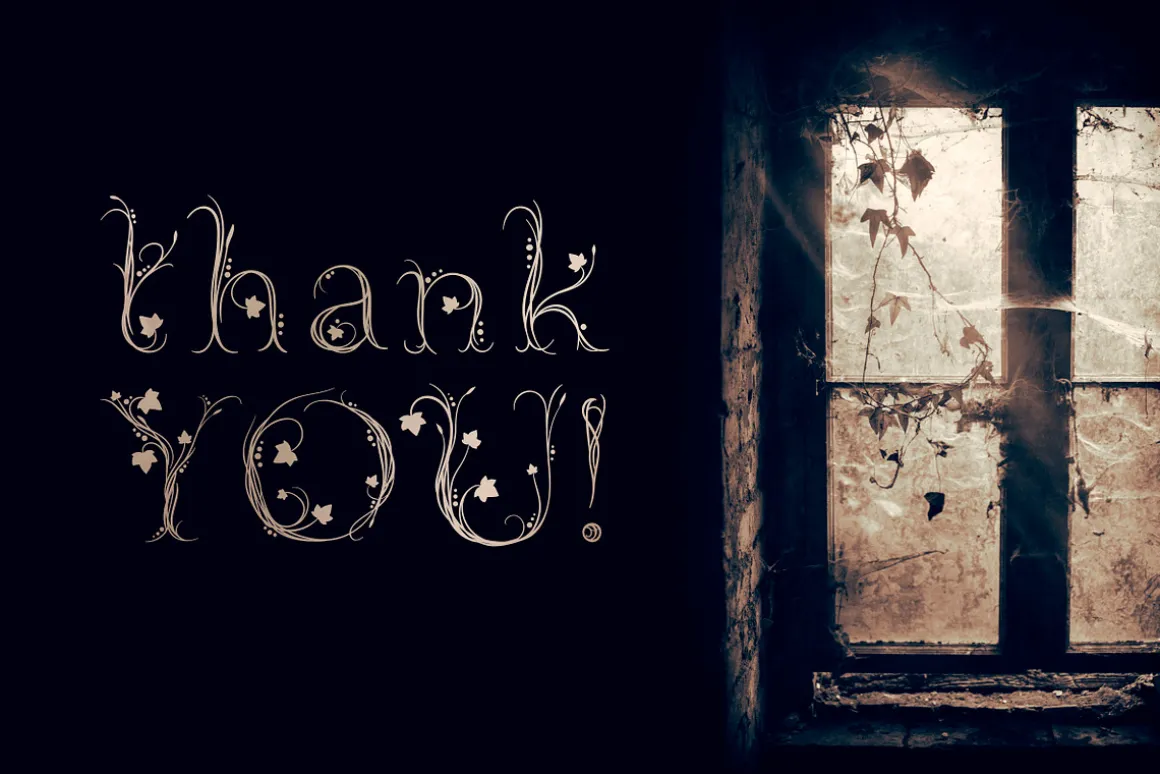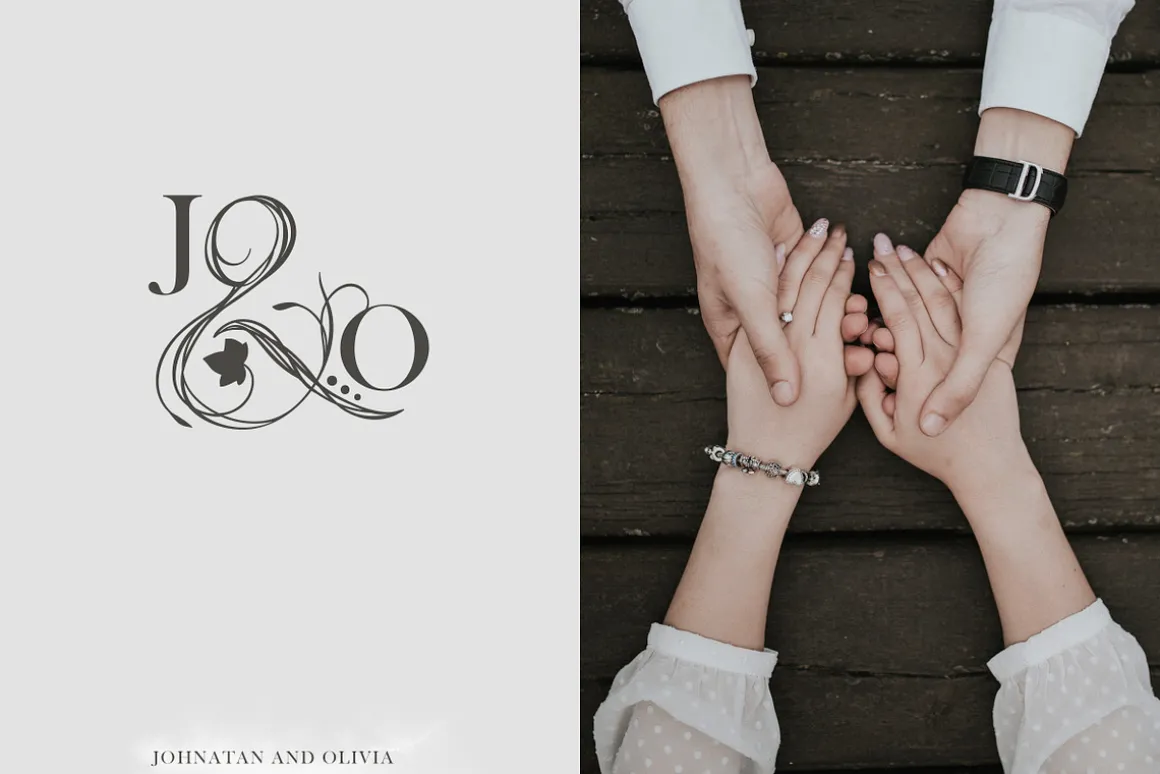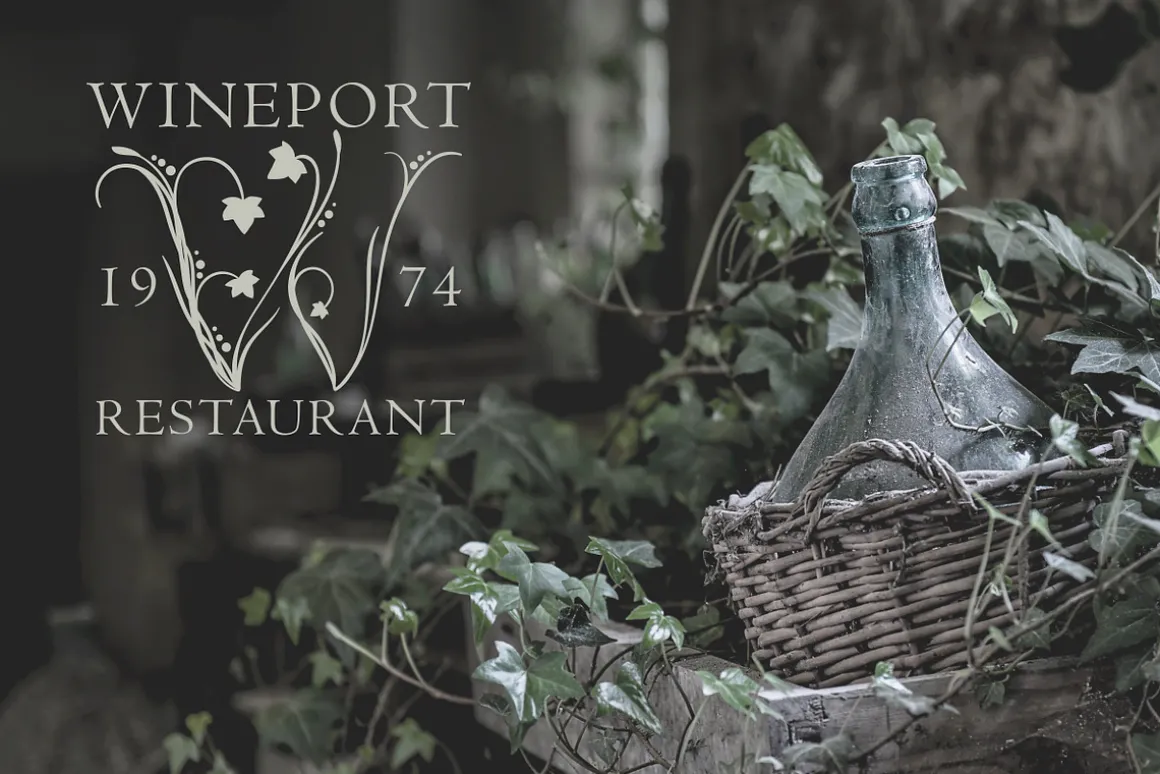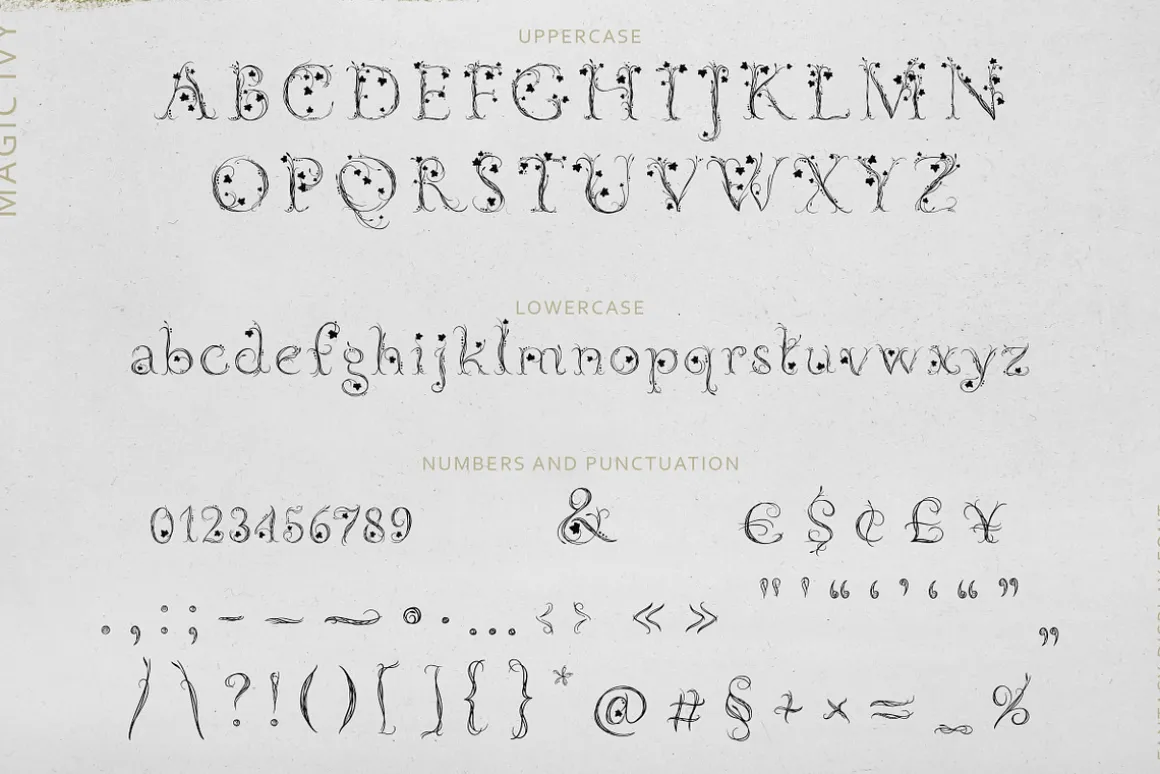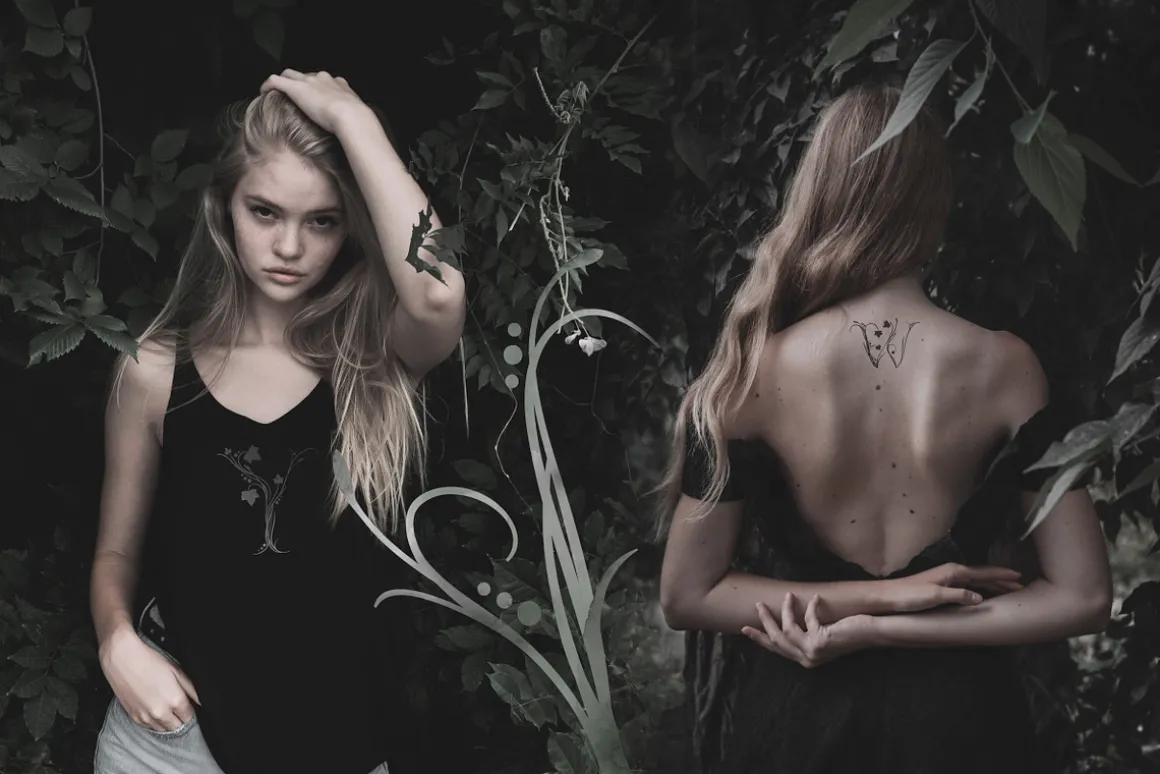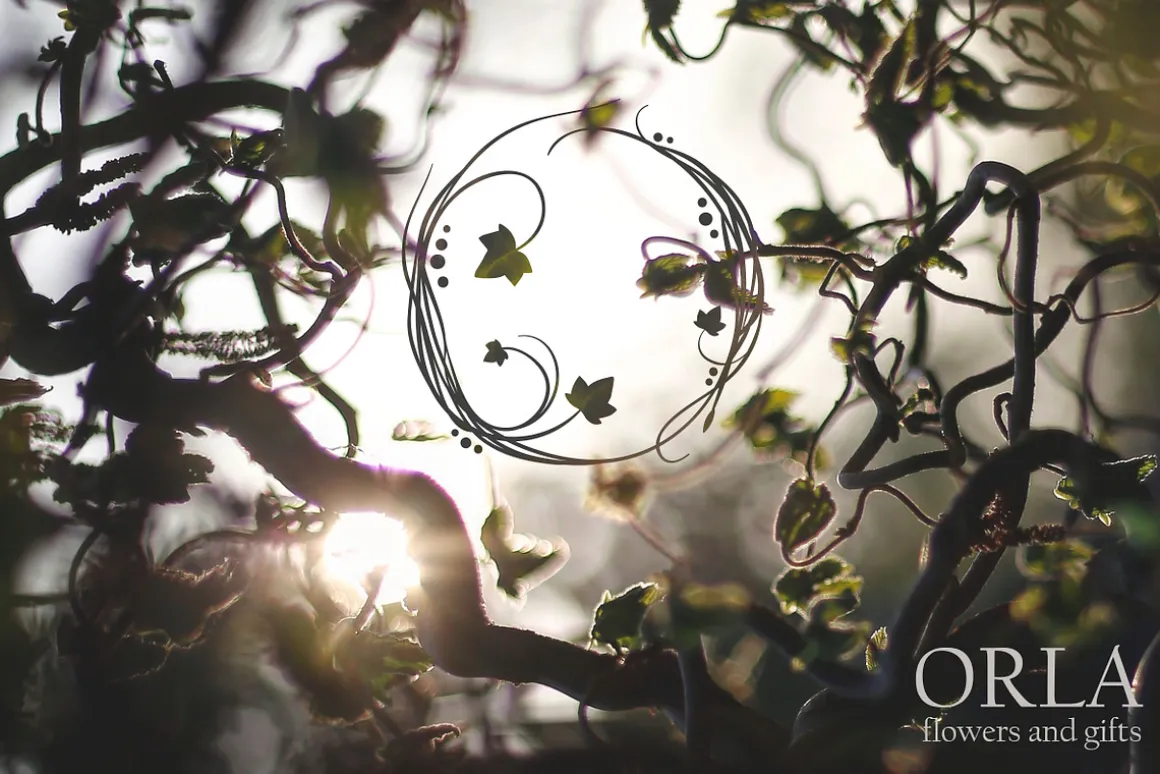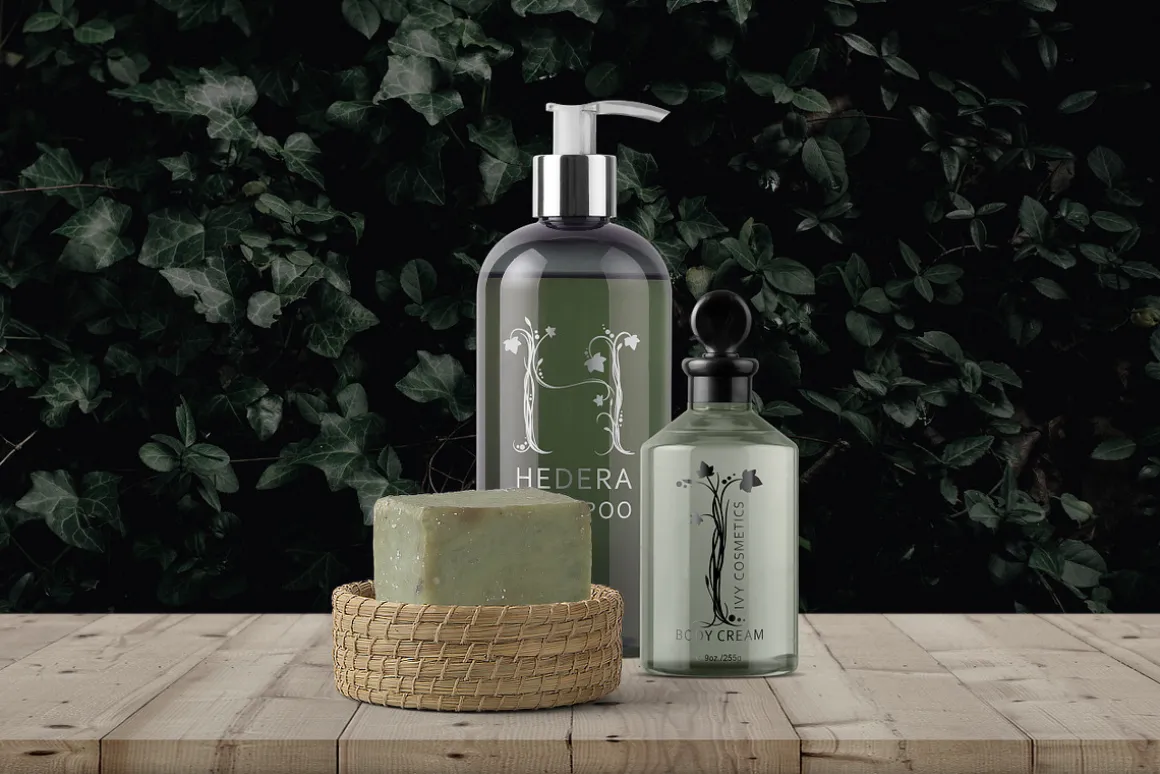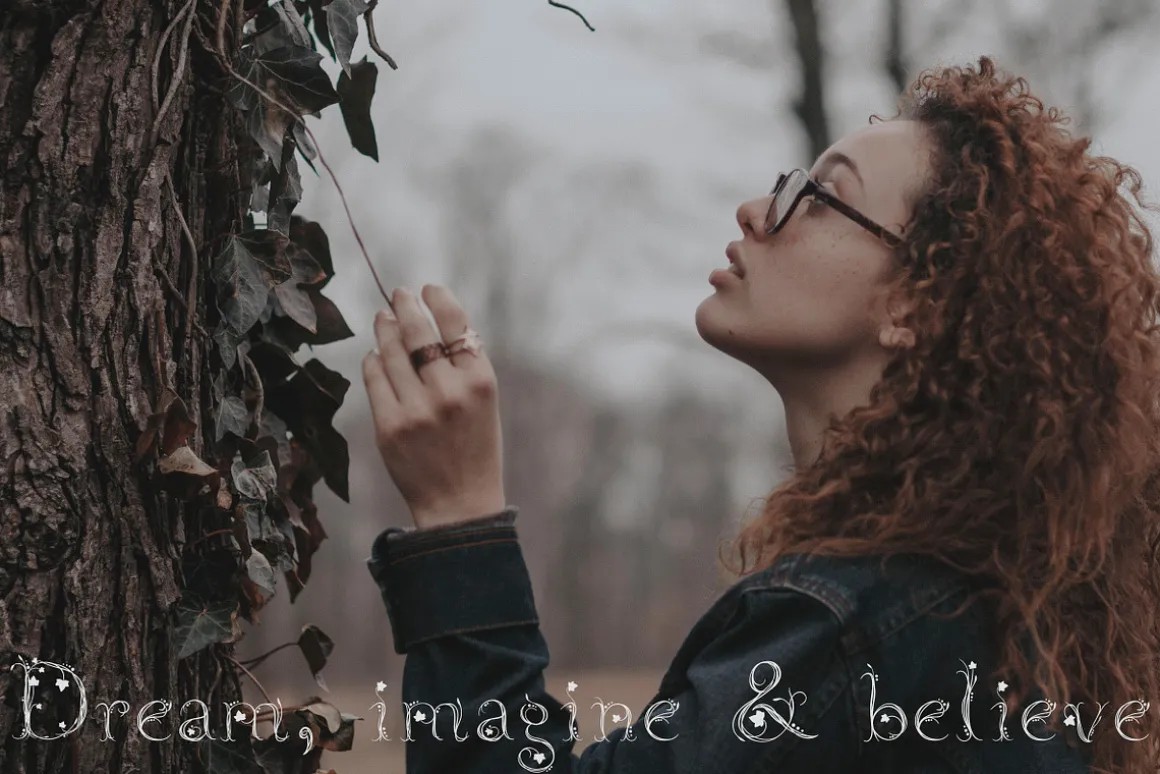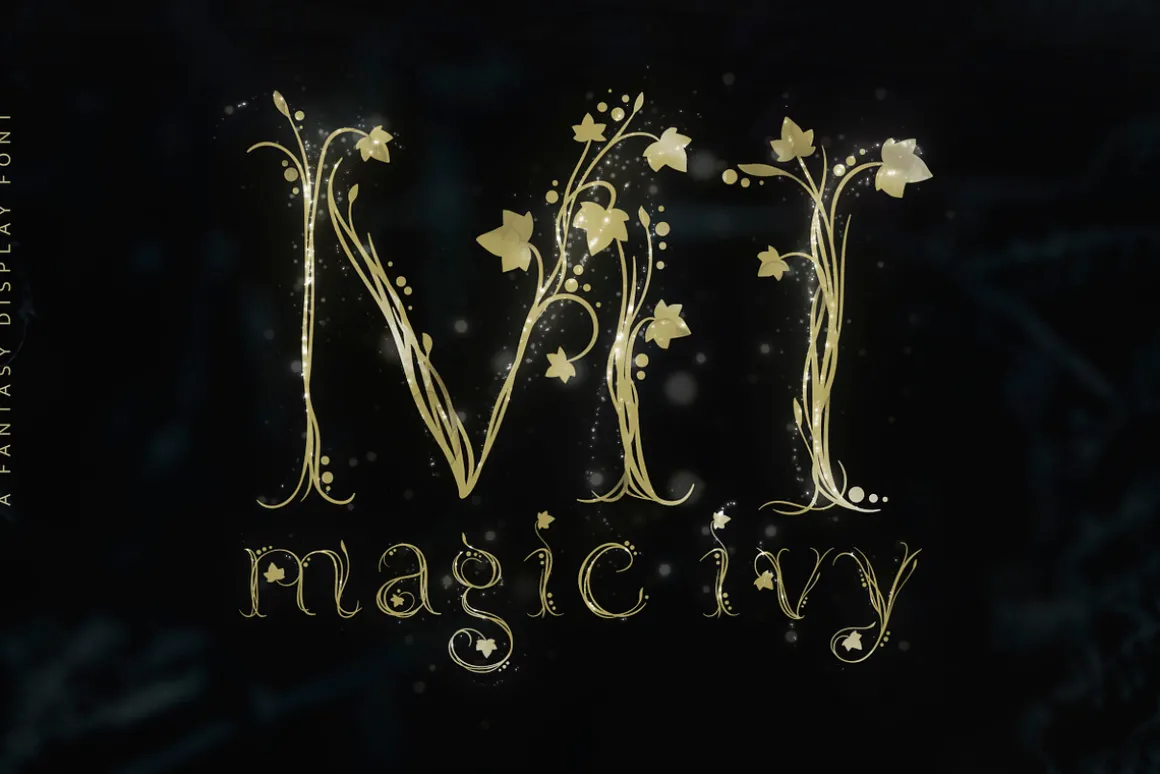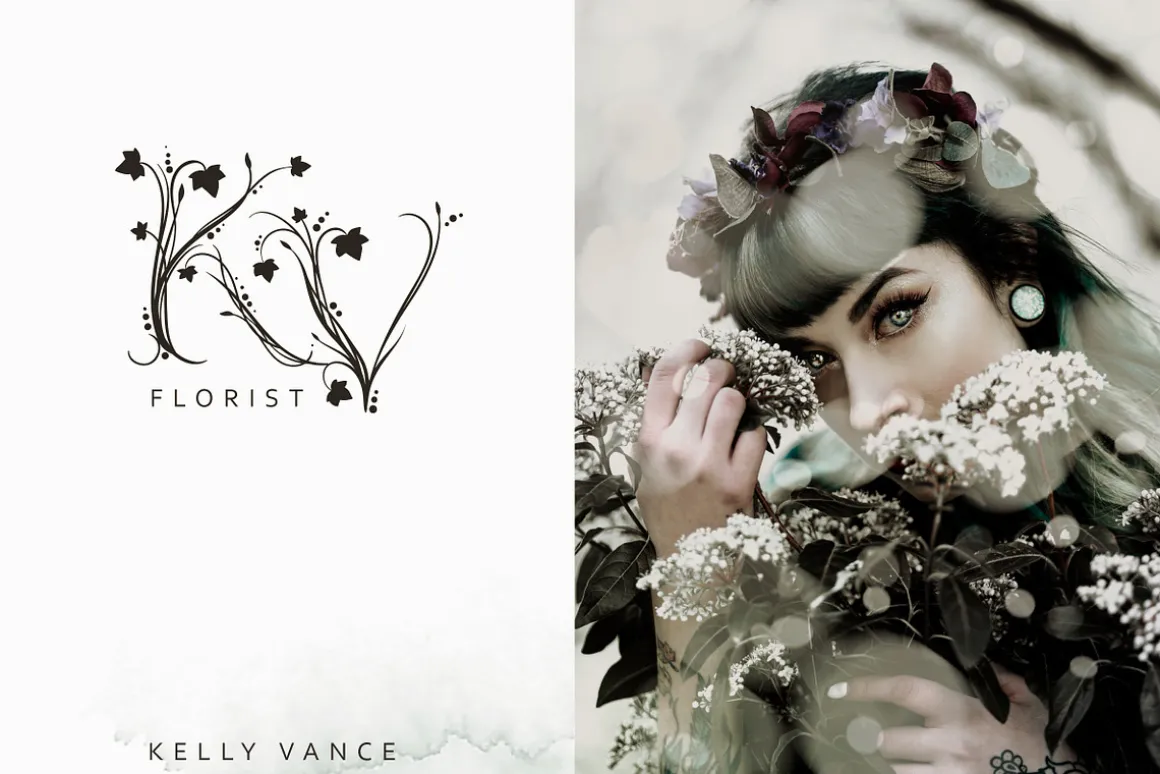
Introducing the enchanting font Magic Ivy!
Magic Ivy is a captivating decorative font designed to infuse your designs with a touch of magic!
With its unique uppercase letters, this font is perfect for creating stunning wedding monograms and logos that exude elegance and charm.
Unleash the beauty of nature with Magic Ivy. This botanical-inspired font is a perfect choice for wedding invitations, branding projects, packaging designs, magazine layouts, florist shops, social media graphics, restaurant menus, captivating headers, posters, and even fabulous book covers. The possibilities are endless!
Magic Ivy includes a complete set of uppercase and lowercase letters, numerals, and punctuation marks, providing you with all the tools you need to bring your creative visions to life.
Magic Ivy has now been updated to support Spanish, German, French, Italian, Portuguese, Swedish, Norwegian, Danish, Finnish and other.
Let the whimsical allure of Magic Ivy weave its spell on your designs and transport your audience to a world of wonder and enchantment.